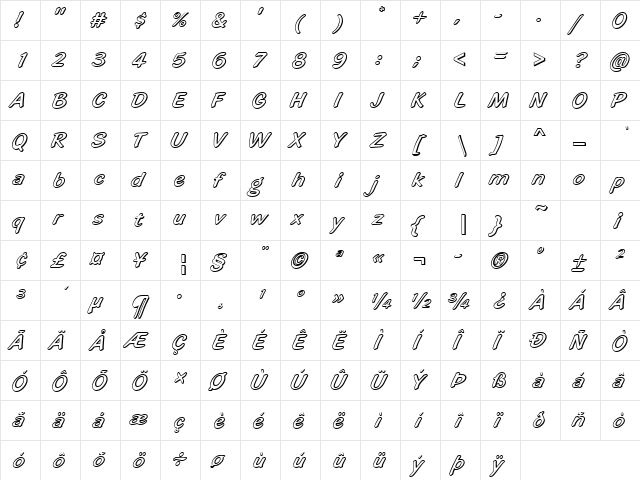
Highlight Becker Regular Font Preview
Highlight Becker Regular
Highlight Becker Regular Font Details
Design Context for Highlight Becker Typeface
Highlight Becker takes a measured approach to typography — its balanced proportions and neutral character make it a reliable workhorse for both digital and print work. The delicate stroke weight brings airiness and refinement to layouts.